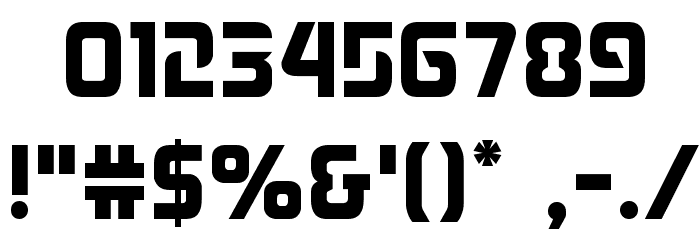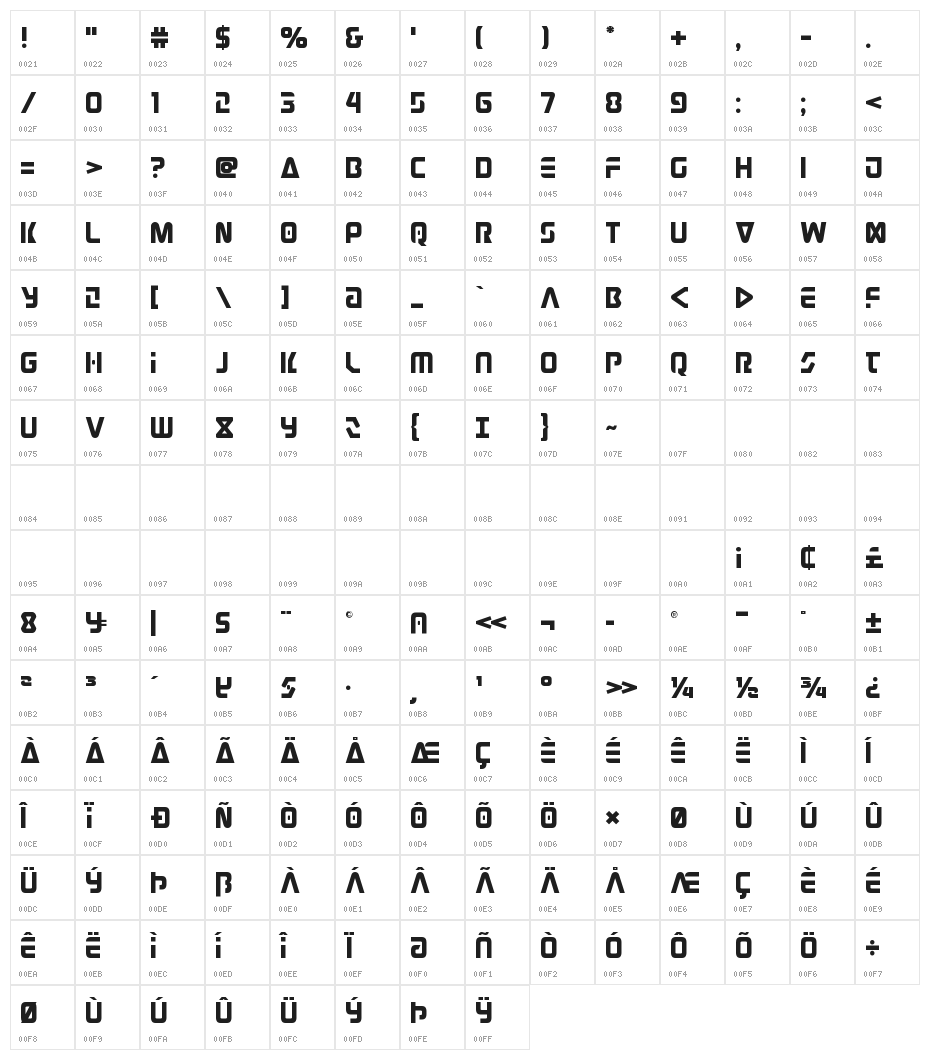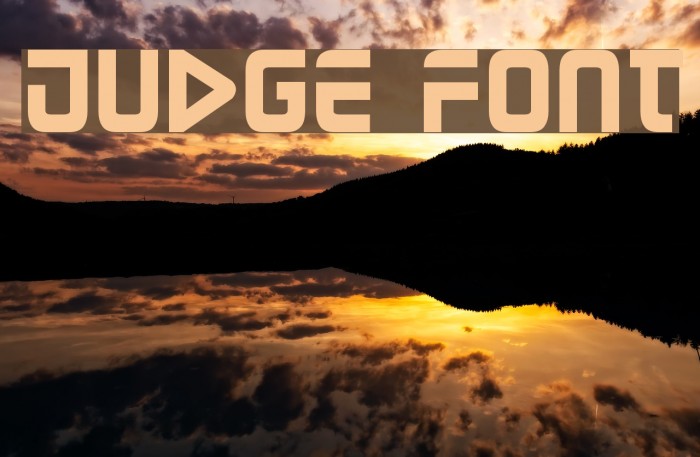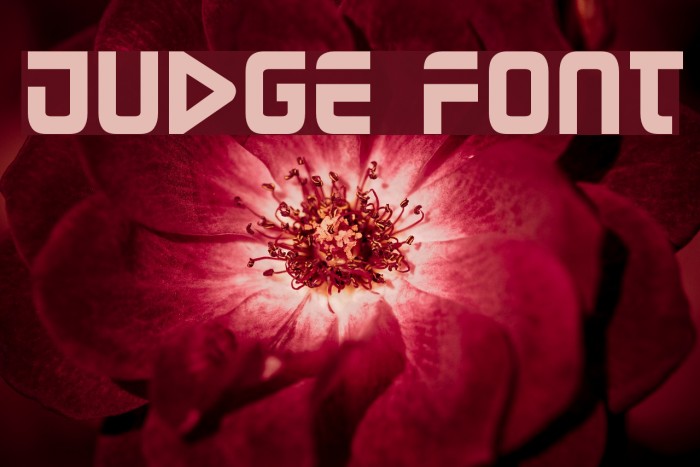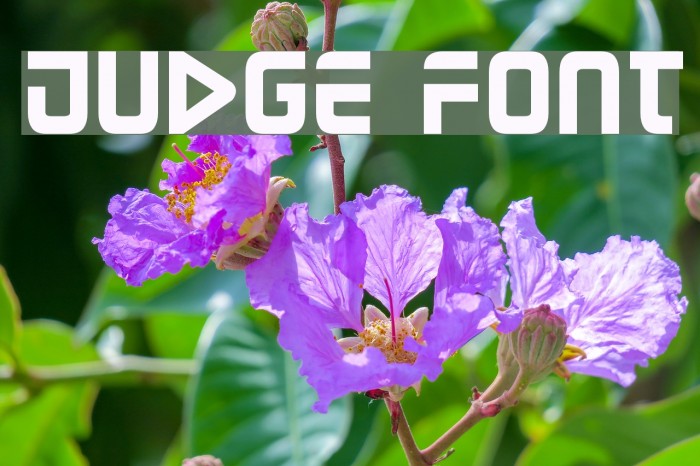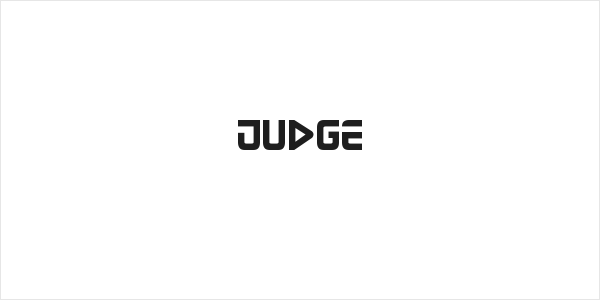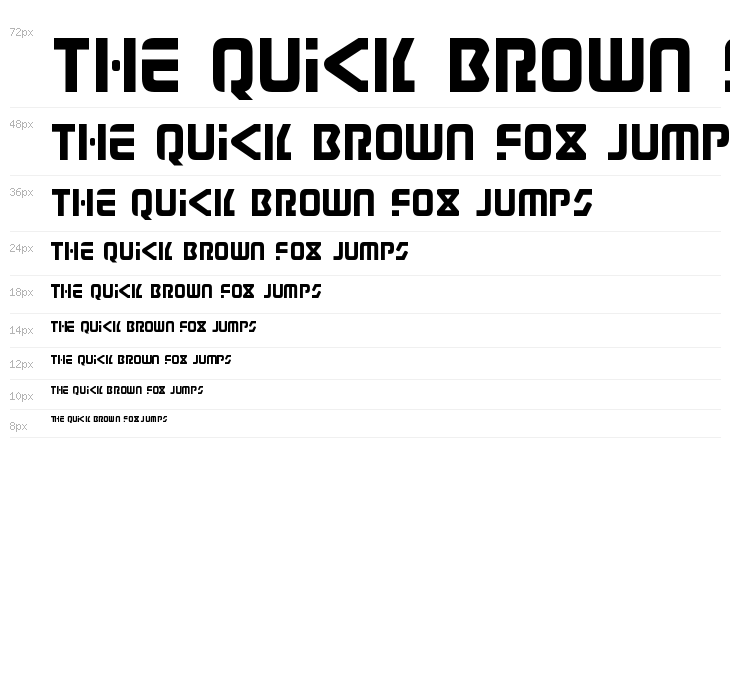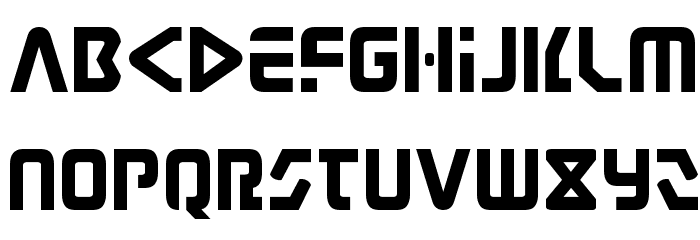
Judge Font
Judge Description
This font features a bold and futuristic design with geometric elements and a strong presence. The characters are constructed with thick lines and sharp angles, creating a sense of modernity and innovation. The uppercase and lowercase letters share a consistent style, with some characters incorporating unique cutouts and shapes that add to the font's distinctiveness. The numerals and special characters follow the same bold and angular design, ensuring uniformity across all glyphs. This font's striking appearance makes it suitable for projects that require a modern and impactful visual statement.